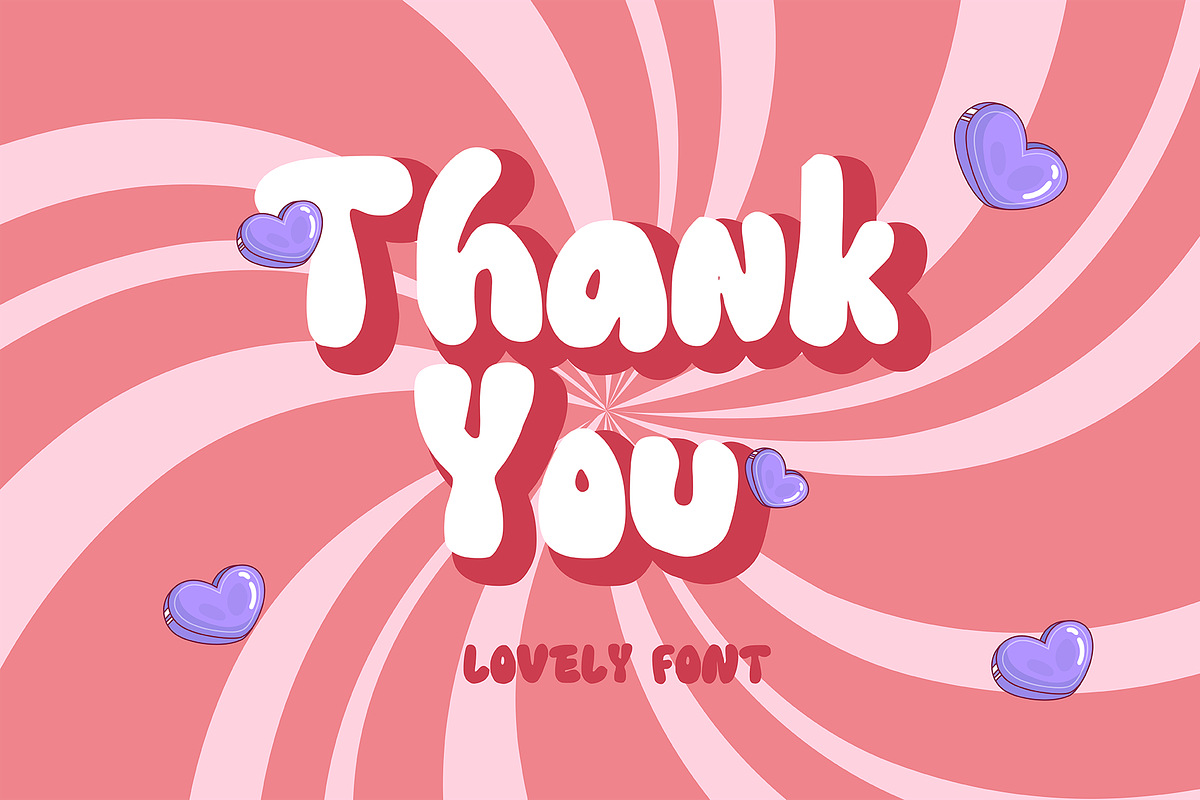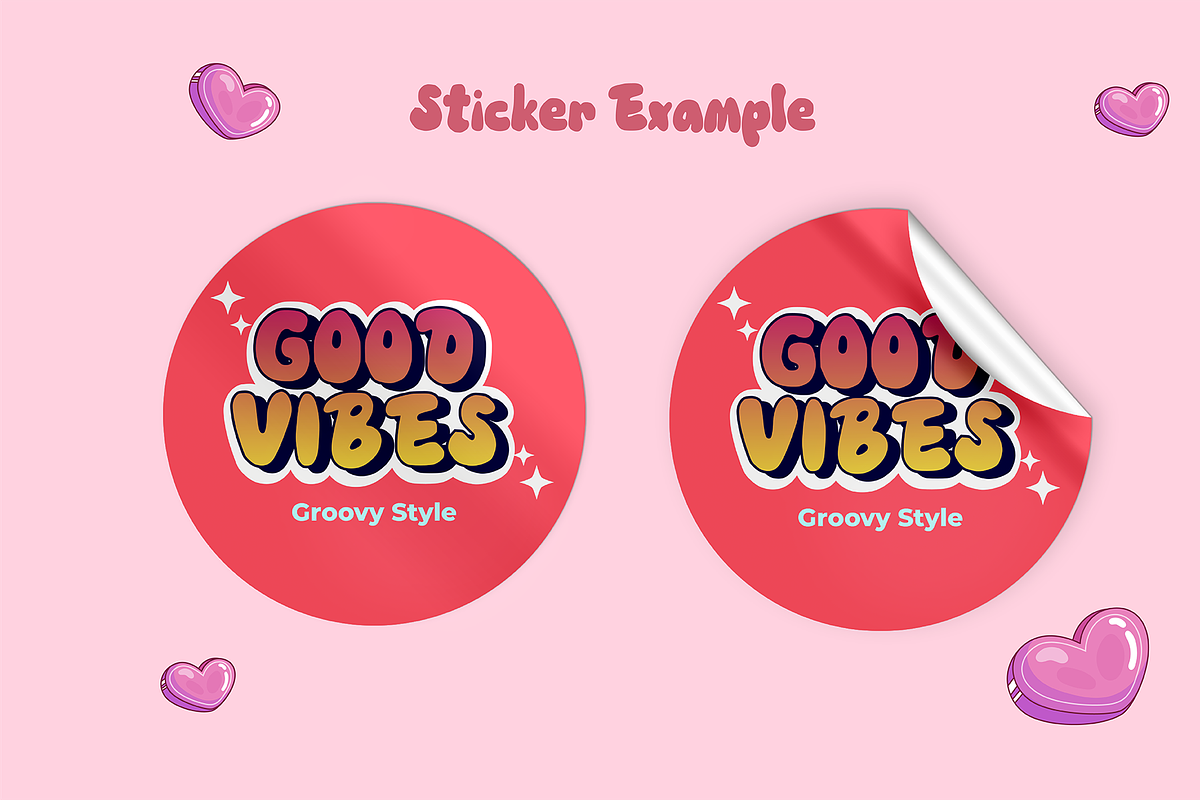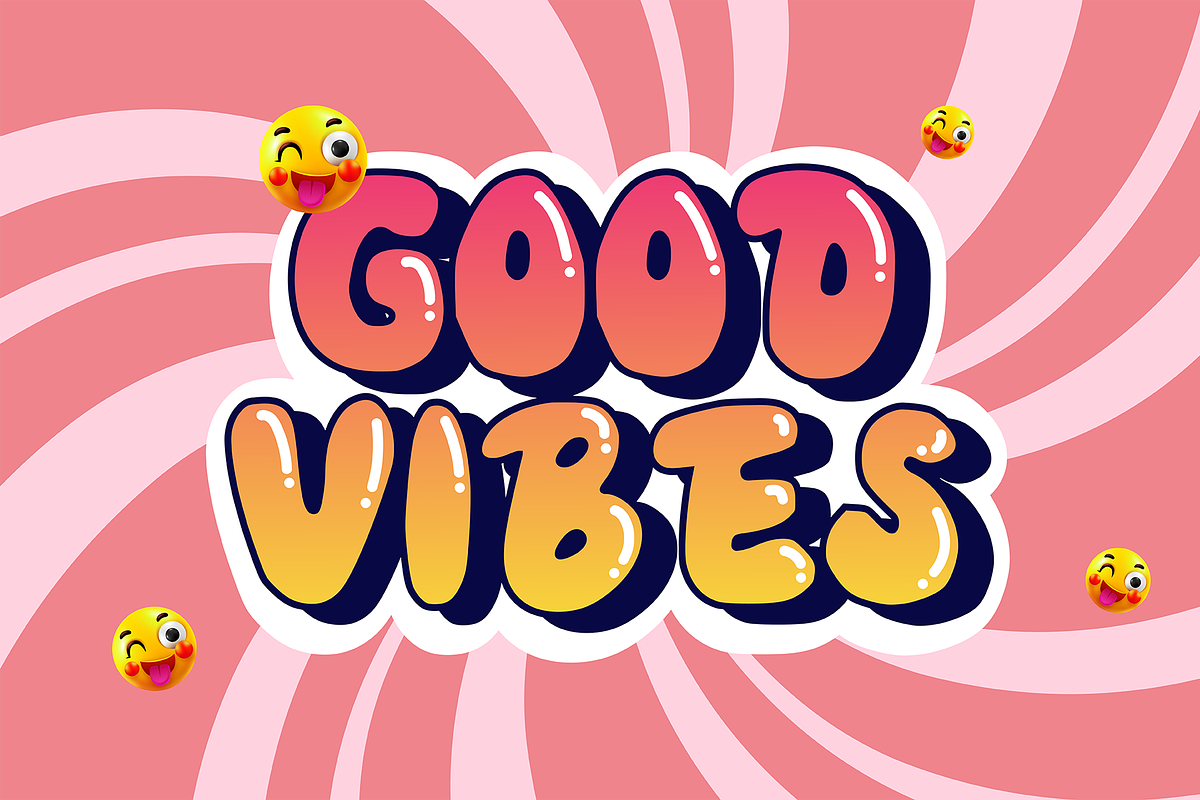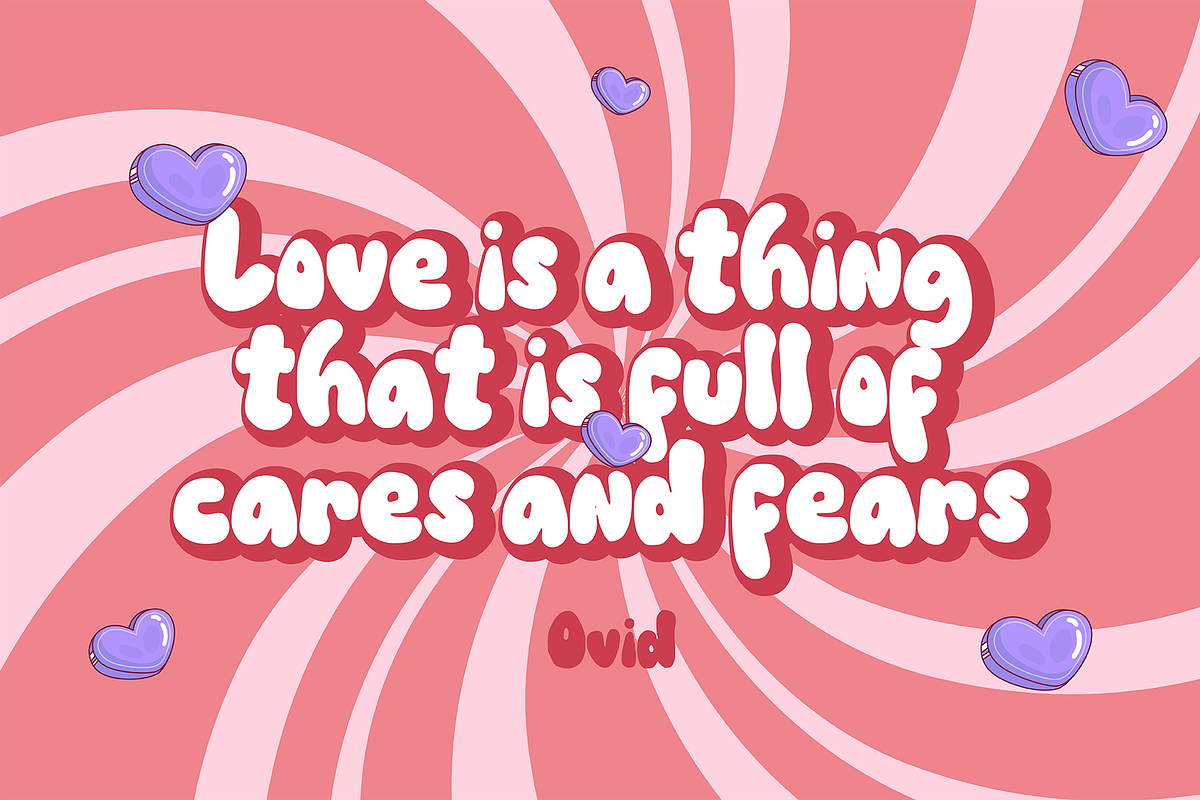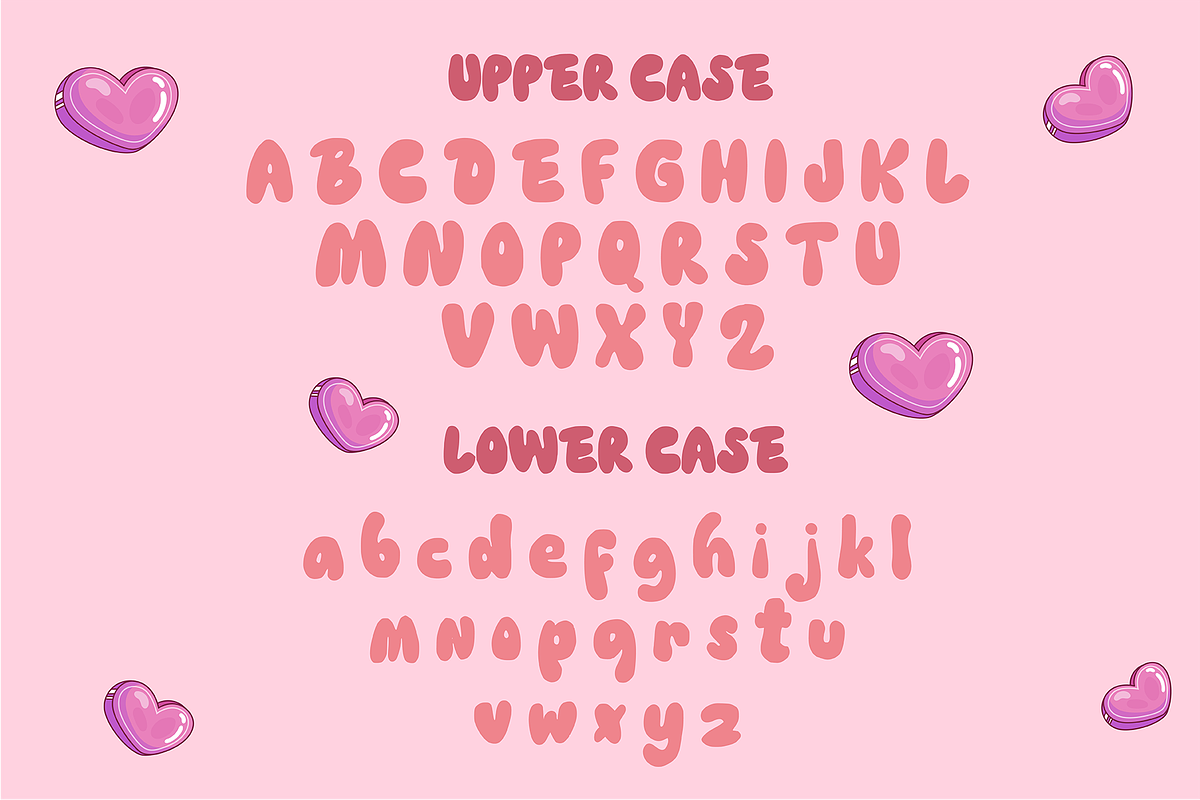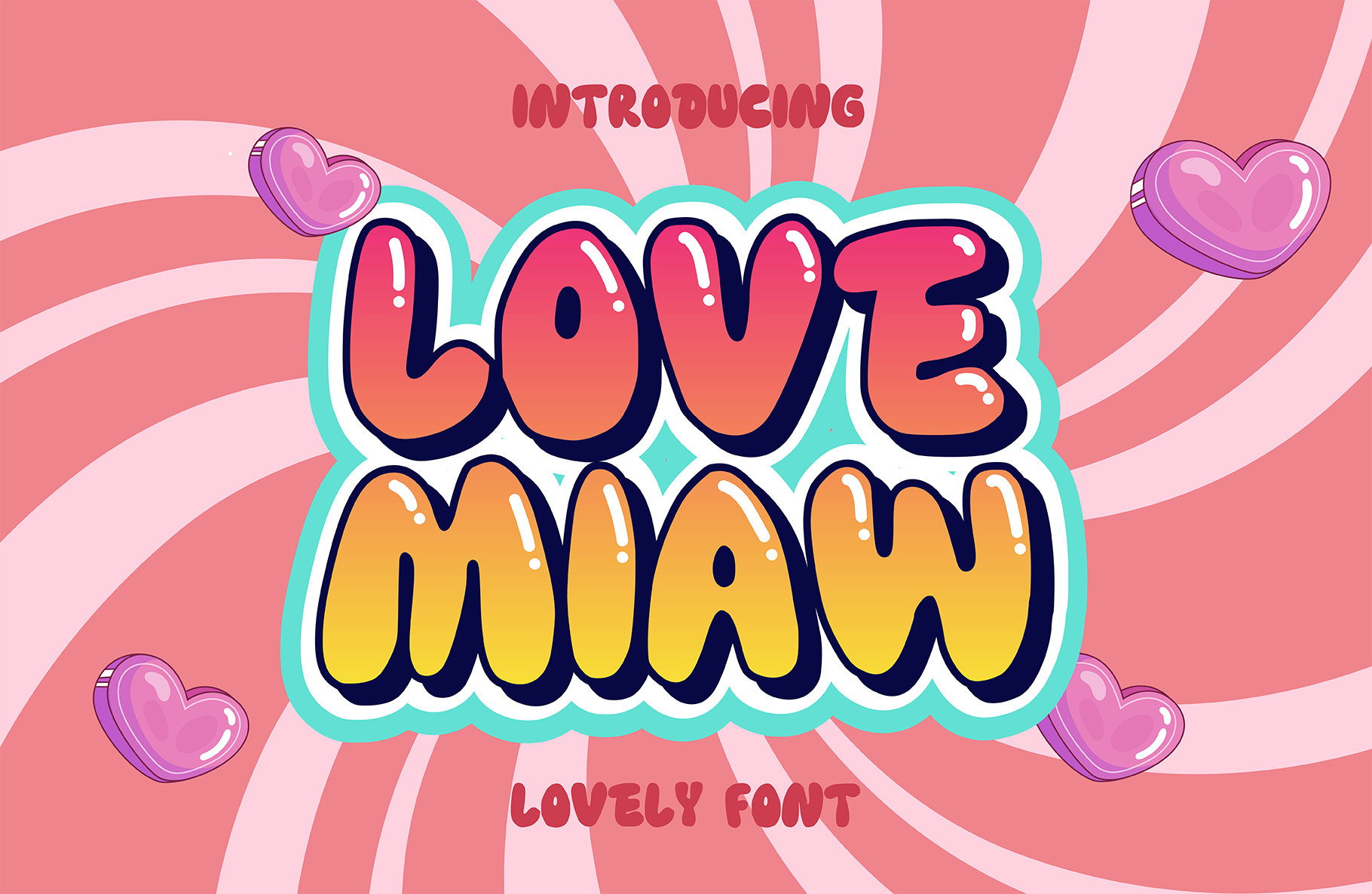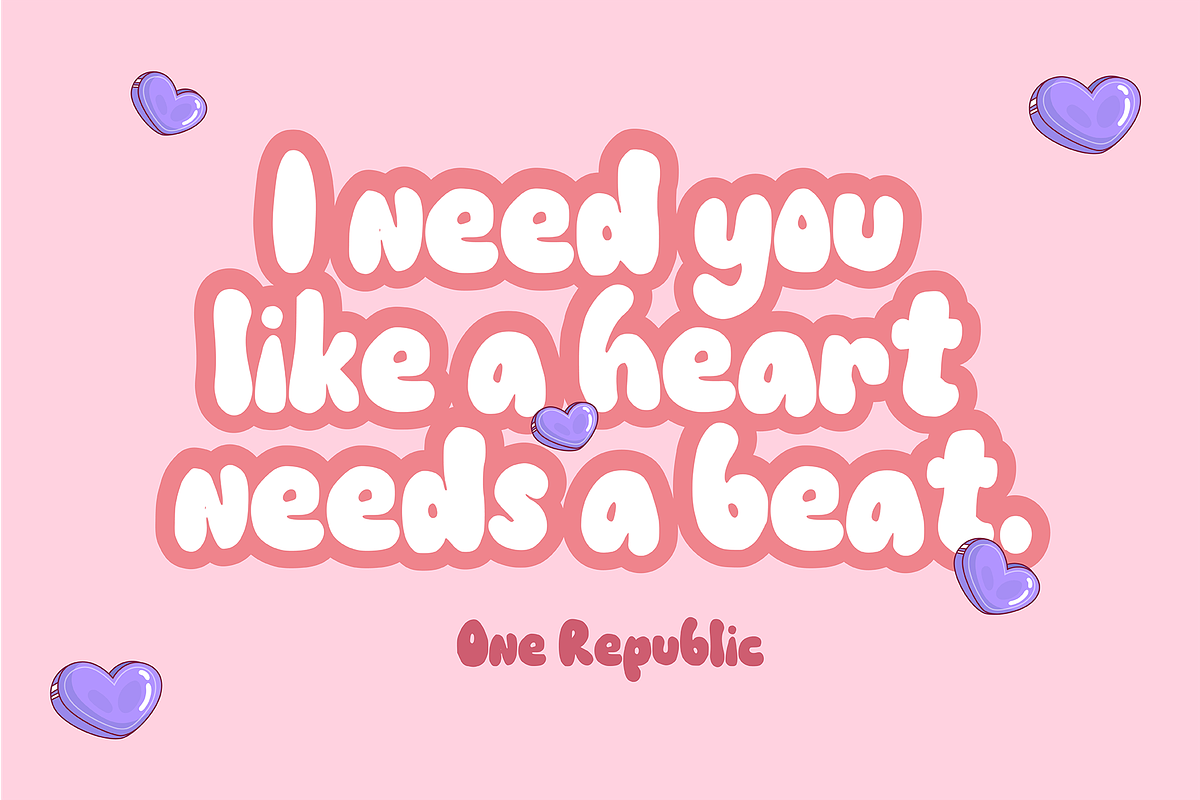
Love Miaw Display Font
Love Miaw, a cute groovy display font. With its bold strokes, psychedelic curves, and retro charm, Homey encapsulates the essence of bohemian aesthetics. Perfect for projects seeking a touch of yesteryear’s warmth and a vibrant, laid-back vibe